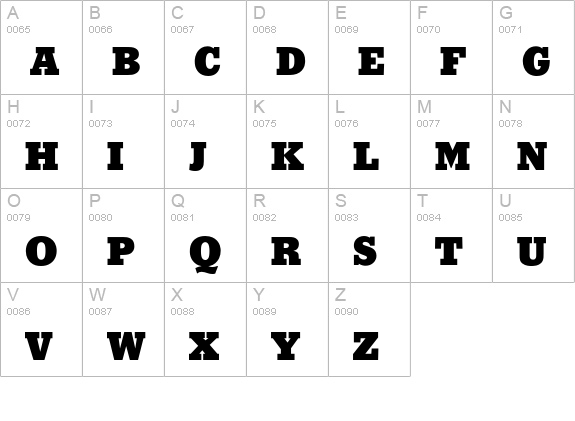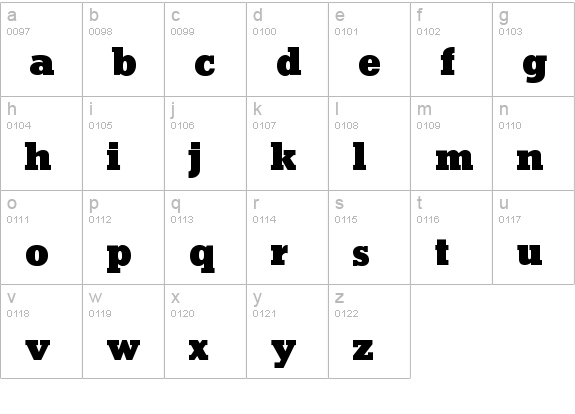
Stymie Black is a maximum-weight, dramatic variant in the Stymie typeface family \xE2\x80\x94 well suited to maximum-impact headlines, posters, and packaging.
Stymie Black font is a bold and impactful typeface that exudes a sense of strength and sophistication. With its clean lines and distinctive style, this font is perfect for making a statement in your designs. Whether you're creating posters, logos, or headlines, Stymie Black font will command attention and leave a lasting impression. The best part? Stymie Black font is available for free download at FontsMarket.com. This means you can easily add this powerful font to your collection without any cost. Don't miss out on the opportunity to elevate your designs with Stymie Black font - download it today and unleash your creativity!